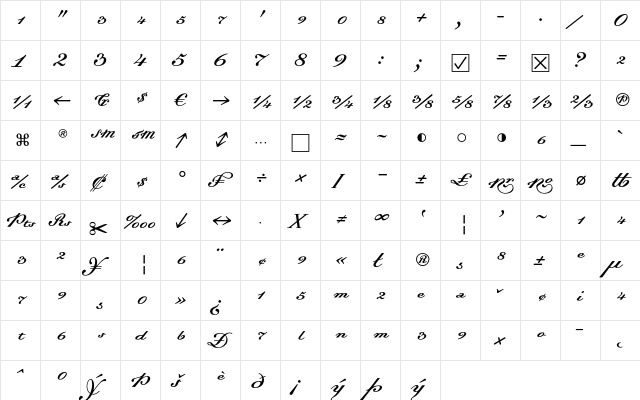
Dalliance Medium Italic
Design Context for Dalliance Typeface
Dalliance is a composed and adaptable typeface that performs quietly and consistently across a wide range of design contexts. The slanted form adds forward momentum and visual energy.